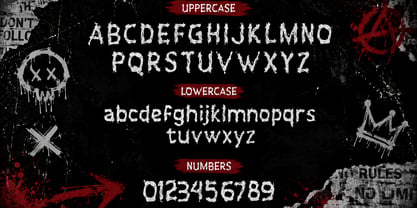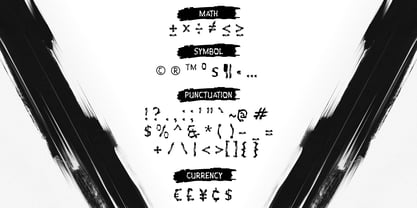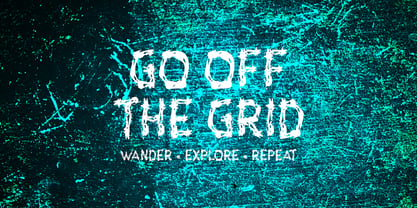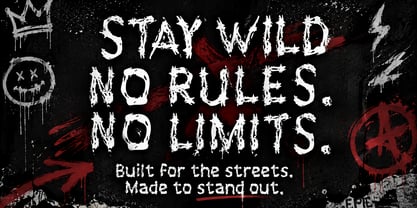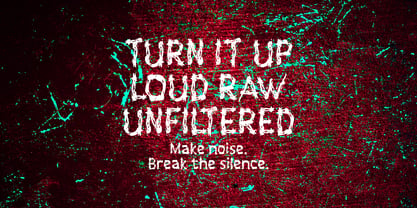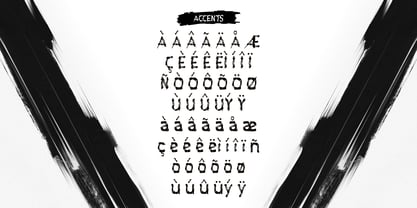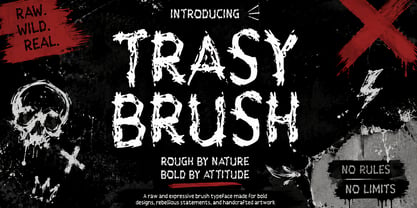
Trasy Brush
by Mei Suseno
The Trasy Brush Font Family was designed by Wahyu Eka Prasetya, Mei Suseno and published by Mei Suseno. Trasy Brush contains 2 styles and family package options. More about this family
TRASY BRUSH is a bold and distressed brush typeface with a raw, rebellious, and handcrafted character. Its rough edges, irregular strokes, and worn textures create an authentic underground aesthetic. Perfect for streetwear, punk and rock posters, album artwork, graffiti designs, logos, stickers, T-shirts, branding, and other projects that need a strong, edgy visual impact
Designers: Wahyu Eka Prasetya, Mei Suseno
Foundry: Mei Suseno